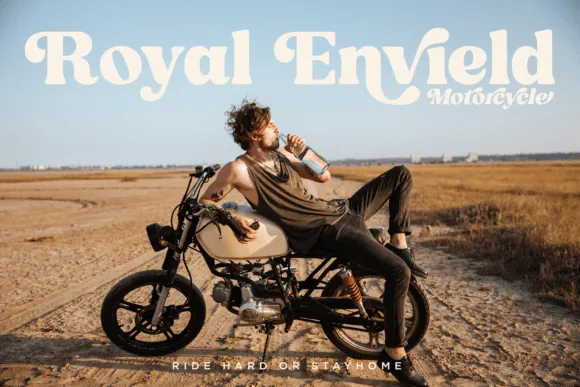
Free Fresh Mango Font Download
Fresh Mango Font is a Retro Serif Text style. Make intense, stunning titles and rich plans with a rare pizazz. Its differentiating lines and bended terminals give a smooth, exquisite focus on logos, occasion cards, wedding solicitations, statements, notices, from there, the sky is the limit.